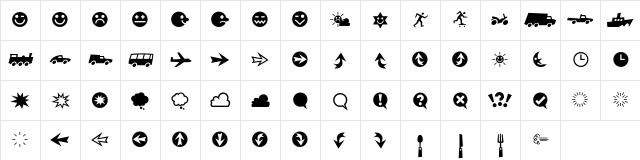
Complete RiansDingbats Three glyph index. Displaying only characters natively supported by RiansDingbats Three font.
RiansDingbats is a composed and adaptable typeface that performs quietly and consistently across a wide range of design contexts.